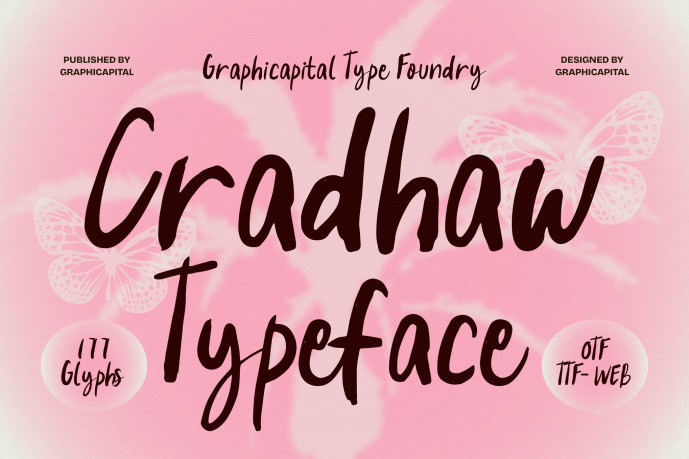
Cradhaw Script Font
Designer: Graphicapital
Cradhaw Script Font is a bold hand-drawn script typeface that combines casual charm with expressive energy. Its smooth curves and organic strokes create a natural, handcrafted feel, making it ideal for branding, packaging, and creative designs.